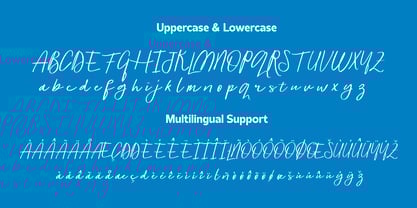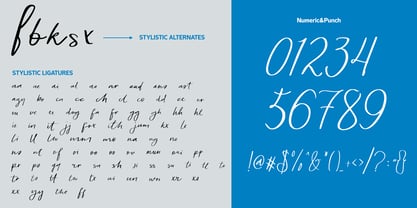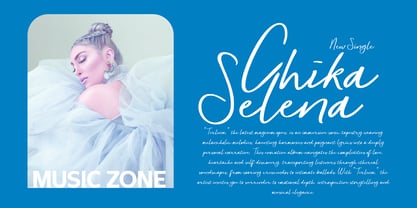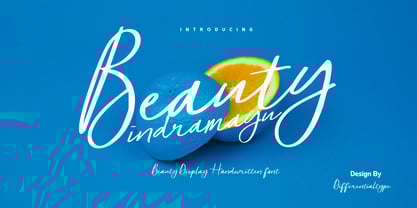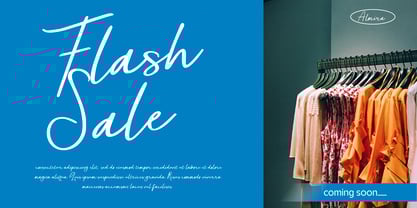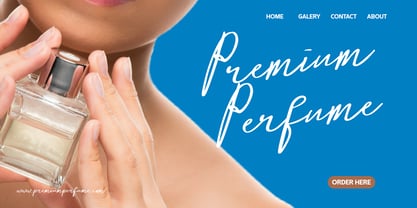
Beauty Indramayu
by Differentialtype
The Beauty Indramayu Font Family was designed by Sidik Sidik and published by Differentialtype. Beauty Indramayu contains 1 styles. More about this family
Welcome to the world of Beauty Indramayu, a contemporary handwritten creation that exudes an unmatched sense of sophistication and luxury. Its remarkable design is ideal for infusing an enchanting charm into your brand identity, leaving an impression of authenticity on wedding invites, and lending an extraordinary touch to your social media content, among others. Incorporate the elegance of Beauty Indramayu into all your creations and experience how this distinctive typeface can instantly elevate your work to new heights.